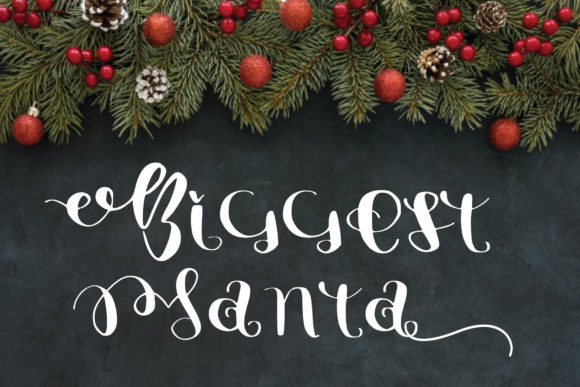
The Magical World of Biggest Santa Font
I’ll never forget the holiday season when I was working on a Christmas card project for a client, and I just couldn’t find the perfect font to capture the festive spirit. The client wanted something elegant, yet playful, and I was determined to deliver. That’s when I stumbled upon Biggest Santa Font, a delicate and elegant handwritten font that stole my heart. Its distinct and well-rounded letters make it a masterpiece, and I knew I had found the perfect fit for my project.
A Personal Review of Biggest Santa Font
- ✨ Elegant and Refined: Biggest Santa Font boasts a sophisticated, cursive style that’s perfect for creating luxurious designs.
- ✅ Versatile: This font is incredibly versatile, making it suitable for a wide range of design projects, from holiday cards to branding and packaging.
- 🎉 Unique Character: The font’s distinctive letters and subtle flair make it stand out from more generic fonts.
While Biggest Santa Font is an amazing addition to any design project, there are a few things to keep in mind:
- 🤔 Limited Use for Body Text: Due to its elegant, cursive nature, Biggest Santa Font might not be the best choice for lengthy body text. It’s better suited for headings, titles, or short paragraphs.
- ⚠️ Glyph Limitations: As with any font, there might be limitations to the number of glyphs available. However, Biggest Santa Font still offers a wide range of characters and OpenType features.
The Story Behind Biggest Santa Font
Biggest Santa Font was created with the intention of capturing the magic and elegance of the holiday season. Its designer aimed to craft a font that would evoke feelings of wonder, joy, and sophistication. Whether you’re designing holiday cards, party invitations, or festive branding, Biggest Santa Font is sure to bring a touch of holiday cheer to your projects.
| Font Name | Biggest Santa Font |
| Author | goodigital |
| What makes Biggest Santa Font unique? | Biggest Santa Font boasts a distinctive, elegant, and refined handwritten style, making it perfect for creating luxurious designs. |
| Is Biggest Santa Font suitable for body text? | While Biggest Santa Font is beautiful, it’s better suited for headings, titles, or short paragraphs due to its elegant, cursive nature. |